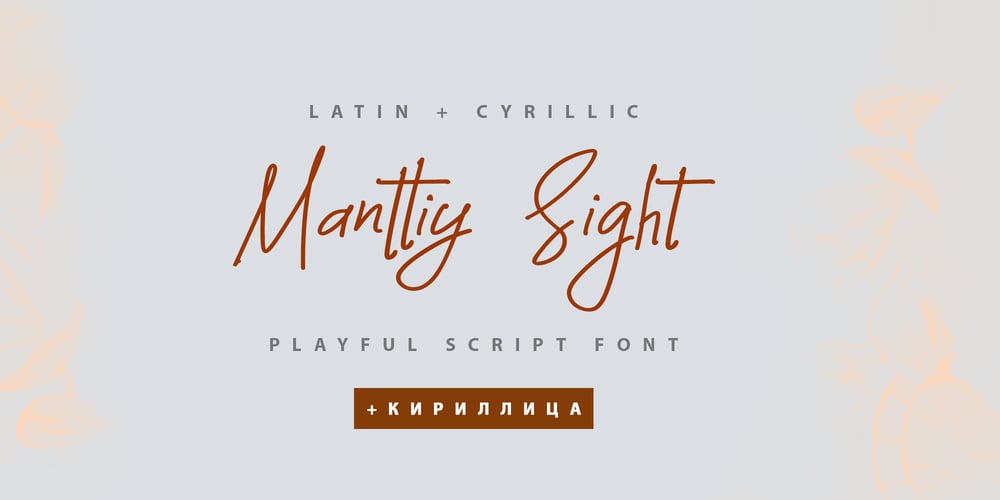
Manttiy Sight Cyrillic Font Family was designed by Iryna Dviliuk and published by Ira Dvilyuk. Manttiy Sight Cyrillic contains 1 styles and family package options. Manttiy Sight playful script font Cyrillic is a pretty monoline font that will look gorgeous on all your designs, wedding stationery, love stories, branding materials, monoline logos, pretty teenage stickers, business and wedding cards, calligraphy Insta quotes, elegant fashion sketches, calligraphy love monograms and much more.Manttiy Sight playful script font contains Cyrillic glyphs too.Multilingual Support for 31 languages: Latin glyphs for Afrikaans, Albanian, Basque, Bosnian, Catalan, Danish, Dutch, English, Estonian, Faroese, Filipino, Finnish, French, Galician, Indonesian, Irish, Italian, Malay, Norwegian Bokmål, Portuguese, Slovenian, Spanish, Swahili, Swedish, Turkish, Welsh, Zulu.Cyrillic glyphs support Russian, Belorussian, Bulgarian, Ukrainian, Mongolian, and Kazakh languages.Works perfectly on the Canva platform.For Cricut & Silhouette recommended.Thanks!